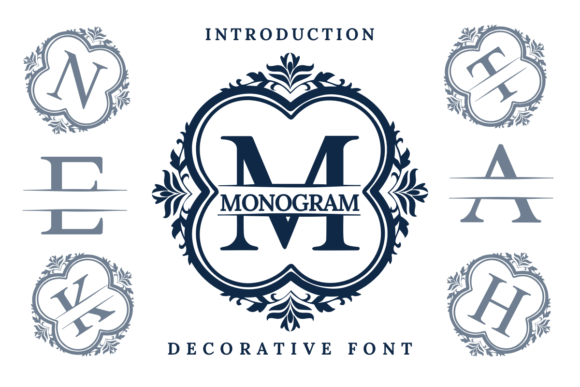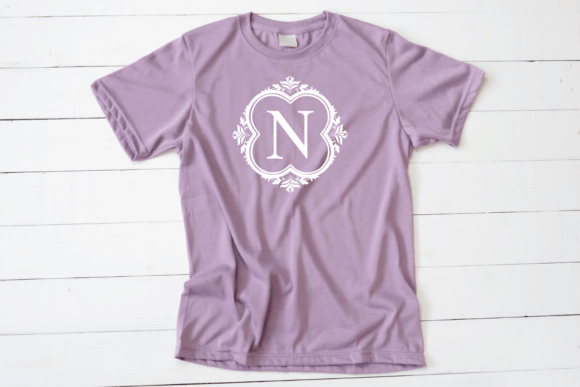
Monogram Font
Monogram is a fancy letter design where letters are combined into one decorative symbol. It’s often used for adding a personal touch to things like initials on towels or wedding invitations.